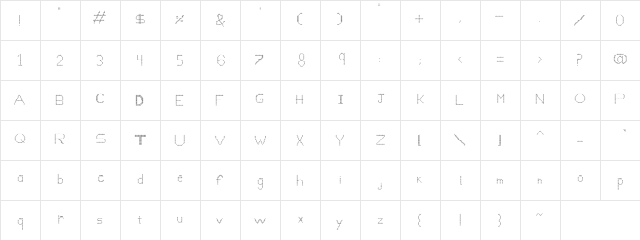
mi letra Regular
Design Context for mi letra Typeface
mi letra is a composed and adaptable typeface that performs quietly and consistently across a wide range of design contexts.